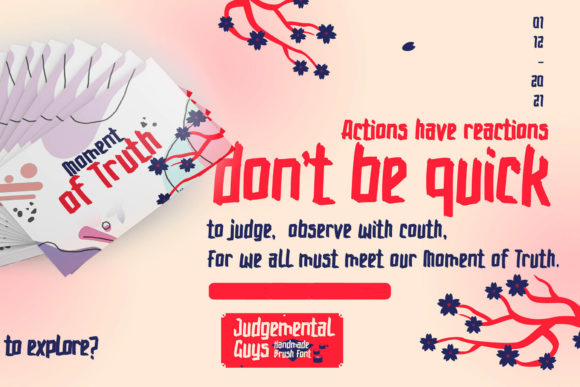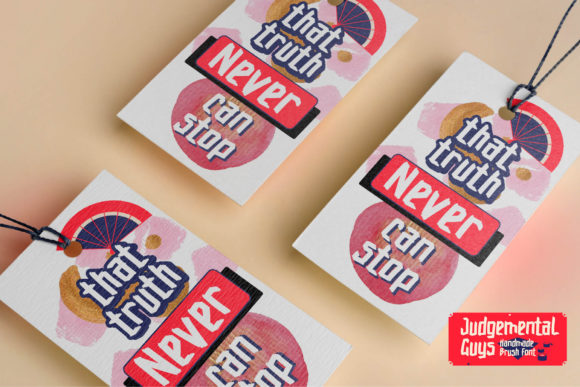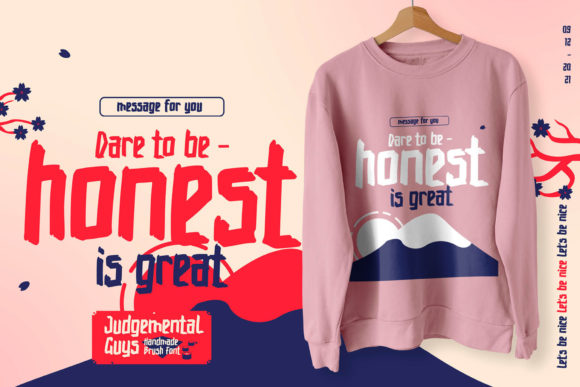
Introduction to Judgemental Guys Font
Have you ever stumbled upon the perfect design element, only to have it elevate your entire project to the next level? For many designers, this moment is a game-changer – it’s the difference between a good design and a great one. For those who have been searching for that special something, we’re excited to introduce you to the Judgemental Guys Font, a stunning display font that’s sure to leave a lasting impression.
This high-quality, handmade font boasts a classy, signature brush style that’s perfect for a wide range of creative projects. From watermarks and photography to logos, branding, and invitations, the Judgemental Guys Font is a valuable addition to any designer’s toolkit. Its versatility and unique style make it an invaluable design resource that can help you stand out from the crowd and make your designs truly unforgettable.
- Unique, bold, and edgy design makes it perfect for adding a touch of attitude to any creative project
Honest Review: Judgemental Guys Font
I recently had the chance to play around with the Judgemental Guys Font, and I must say it’s a unique addition to any design resource library. As a designer, I appreciate the effort that went into creating this font, and I think it could be a great fit for the right creative project.
- High-quality design: The Judgemental Guys Font has a clear and well-defined design that makes it easy to read and use.
- ⚠️ Limited font styles: The Judgemental Guys Font only comes in a single style, which may limit its versatility for certain design projects.
- ⚠️ May not be suitable for formal designs: The font’s playful and humorous tone may not be suitable for formal or professional designs.
Overall, I think the Judgemental Guys Font is a fun and creative addition to any design library. While it may have some limitations, I appreciate the effort that went into creating it, and I think it could be a great fit for the right project. Whether you’re a seasoned designer or just starting out, it’s definitely worth checking out.
Tips for Getting the Most Out of Judgemental Guys Font
Experiment with different font sizes, colors, and combinations to create a unique look for your design project. Also, be mindful of the font’s readability and legibility in different contexts.
The Judgemental Guys Font is ideal for creative projects that require a bold, attention-grabbing look. Use it for titles, headings, and other text elements to add a touch of personality to your design.